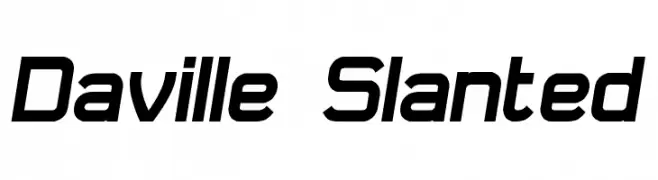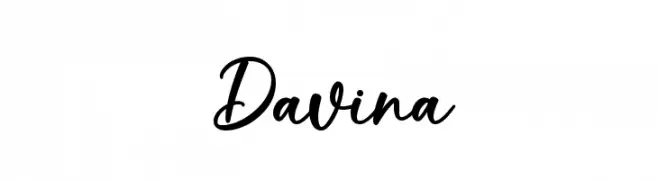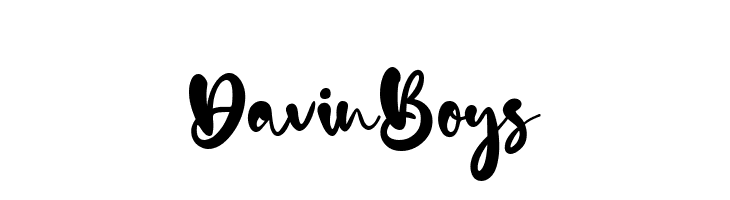
• Daville Slanted Fuentes
• Davin Boys Fuentes
A playful and energetic script font with bold, flowing strokes.
• Davina Fuentes
A lively, cursive font with a fluid, handwritten style.
• DAVINAVINTAGEFONT Fuentes
A decorative font with vintage and modern influences, featuring playful curves and artistic flair.
• Davinia Fuentes
A playful, elegant script font with a handwritten style.
• Davis Fuentes
A whimsical, hand-drawn font with irregular strokes and a playful style.
• Davis Regular Fuentes
A bold, playful font with rounded, bubble-like characters.
• DavitonDEMO Fuentes
A bold, brush-style font with dynamic, hand-painted strokes.
• Davy Francis Fuentes
• Davy Jone's Locker Fuentes
A bold, distressed font with a rugged, maritime-inspired aesthetic.